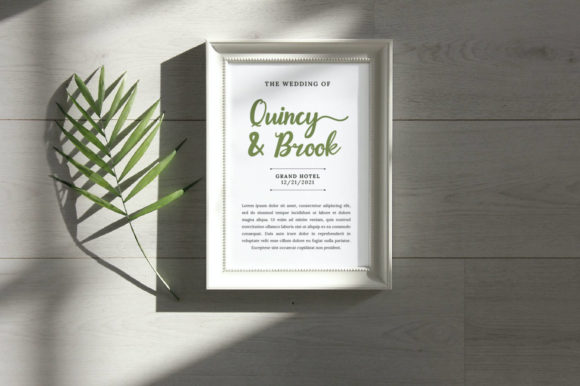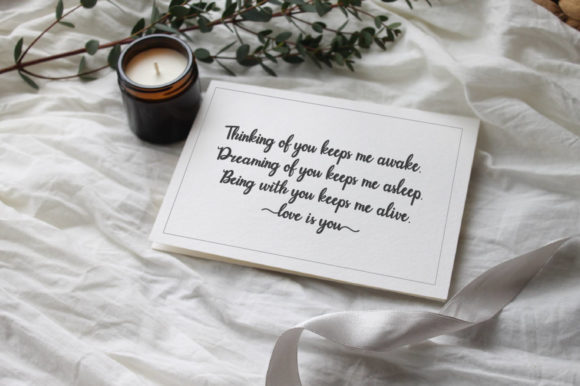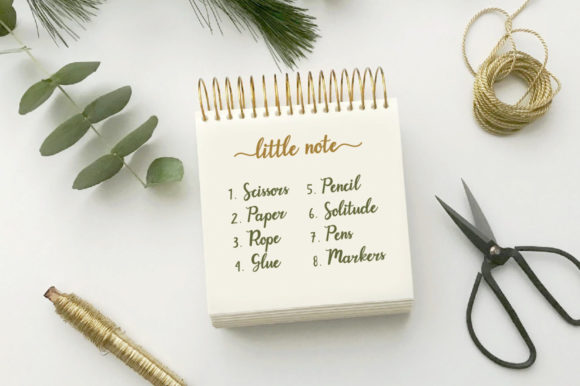
Introduction to Evergarden Font
Evergarden is a delicate, elegant and flowing handwritten font.
It has beautiful and well balanced characters and as a result, it matches a wide pool of designs Evergarden is PUA encoded which means you can access all of the glyphs and swashes with ease.
Key Features of Evergarden Font
Why Choose Evergarden Font?
Evergarden Font offers exceptional quality and versatility, making it a valuable addition to your design toolkit. Whether you’re creating for personal projects or commercial use, Evergarden Font delivers professional results.